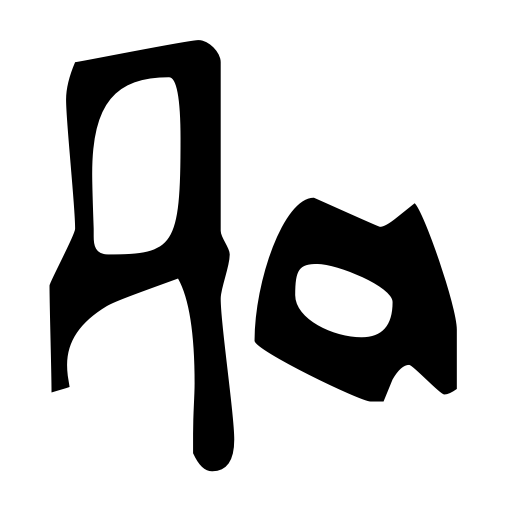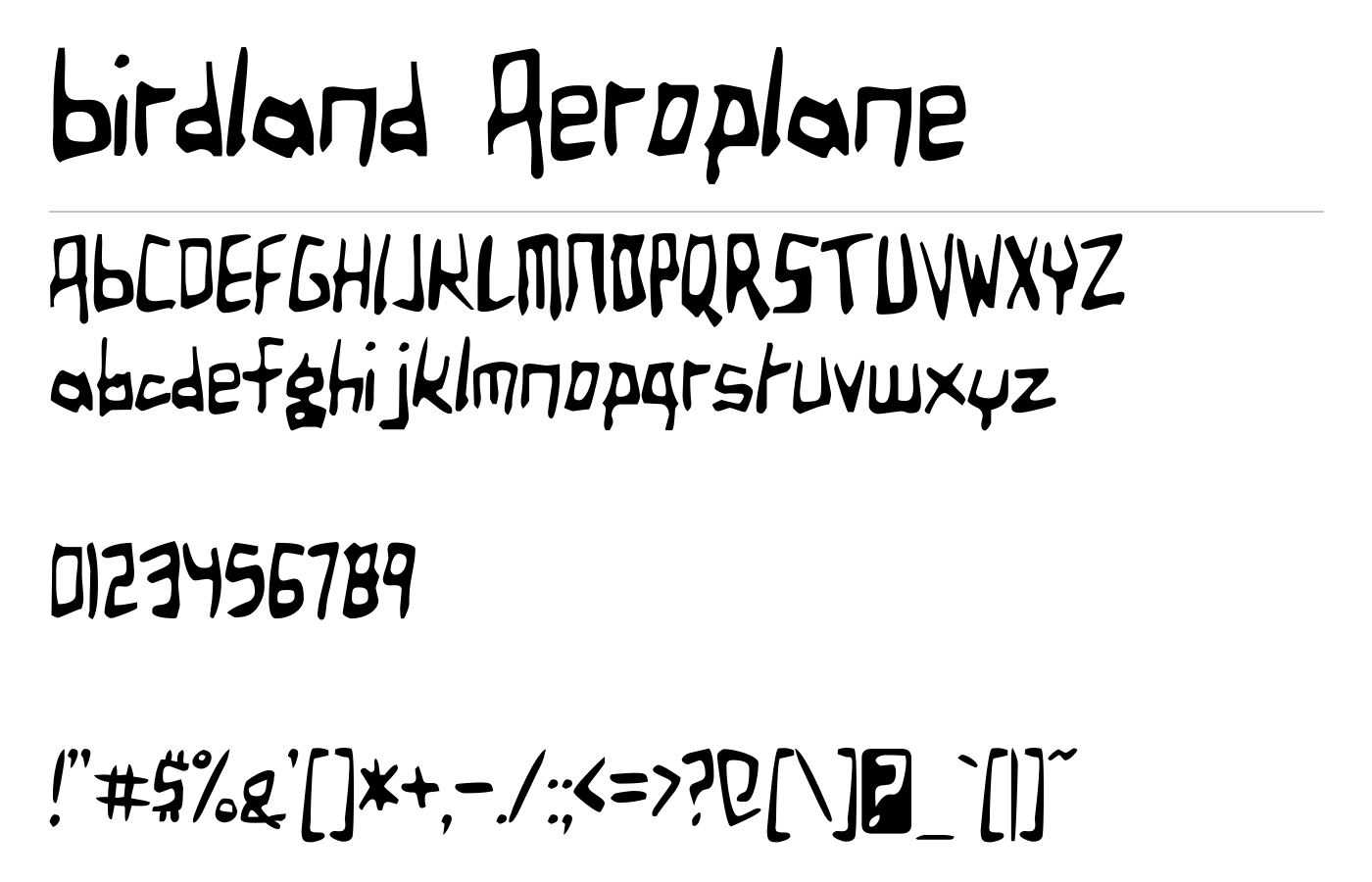
Birdland Aeroplane is a quirky, hand-drawn sans serif font with irregular, playful letterforms that feel lively and spontaneous. Its uneven strokes and distinct character shapes give it a casual, artistic vibe, making it ideal for creative, informal designs such as posters, branding for artsy businesses, or unique headlines that need a personal touch. This font works best where a fun, unconventional mood is desired, adding charm and individuality to any project.
Birdland Aeroplane Font
About Birdland Aeroplane Font
| Font family | Birdland Aeroplane Font |
| Designer | Raymond Larabie |